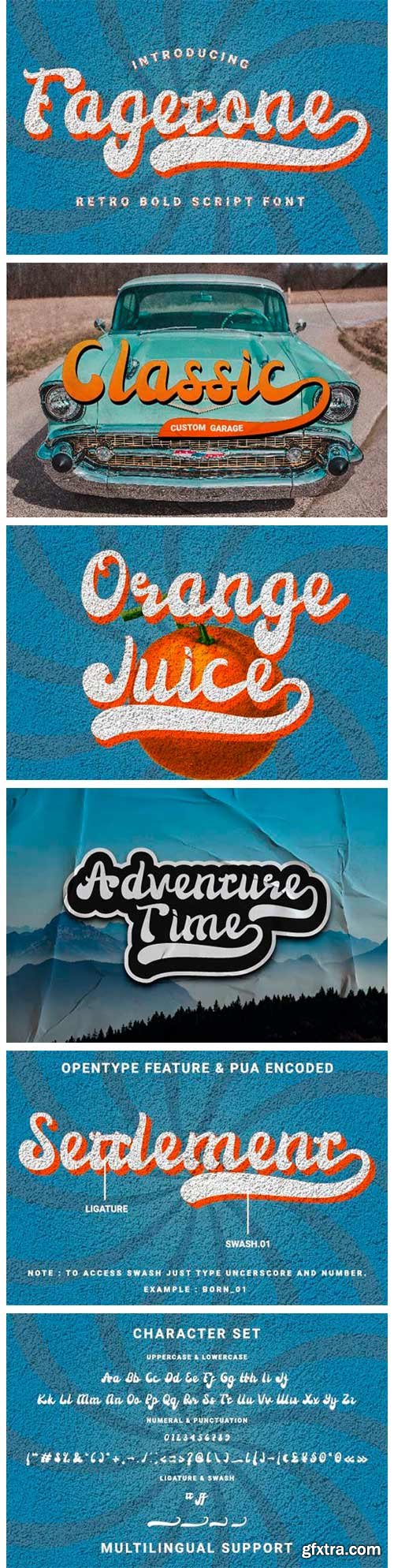
Fagetone Font
Fagetone is a gorgeous, vintage styled, bold handwritten font, crafted to give your headlines and logotype projects a stylish touch. This font reads as strong, confident, and dynamic and can add tons of nostalgic character to your designs.